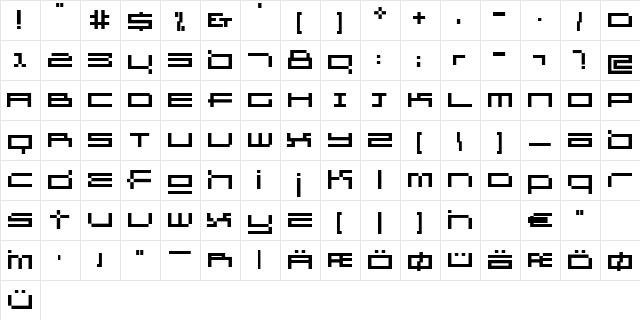
GridExerciseGaps Regular
Design Context for GridExerciseGaps Typeface
GridExerciseGaps takes a measured approach to typography — its balanced proportions and neutral character make it a reliable workhorse for both digital and print work.